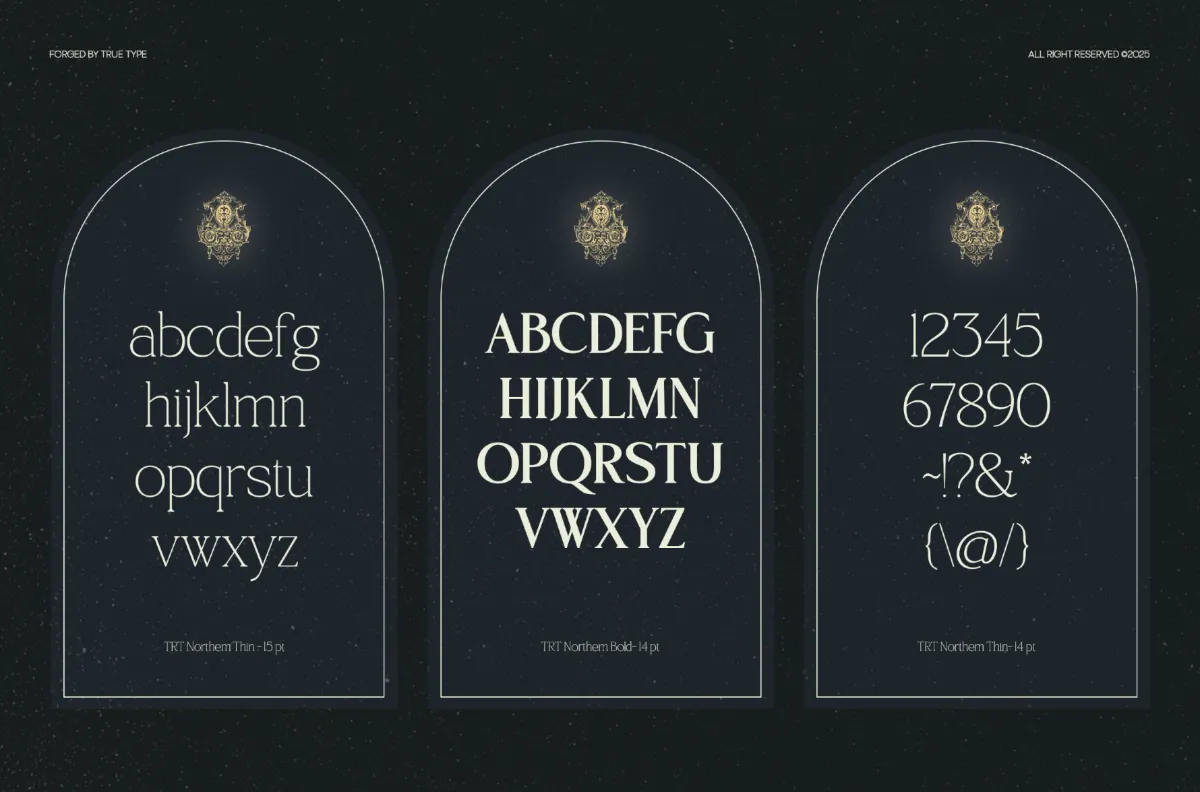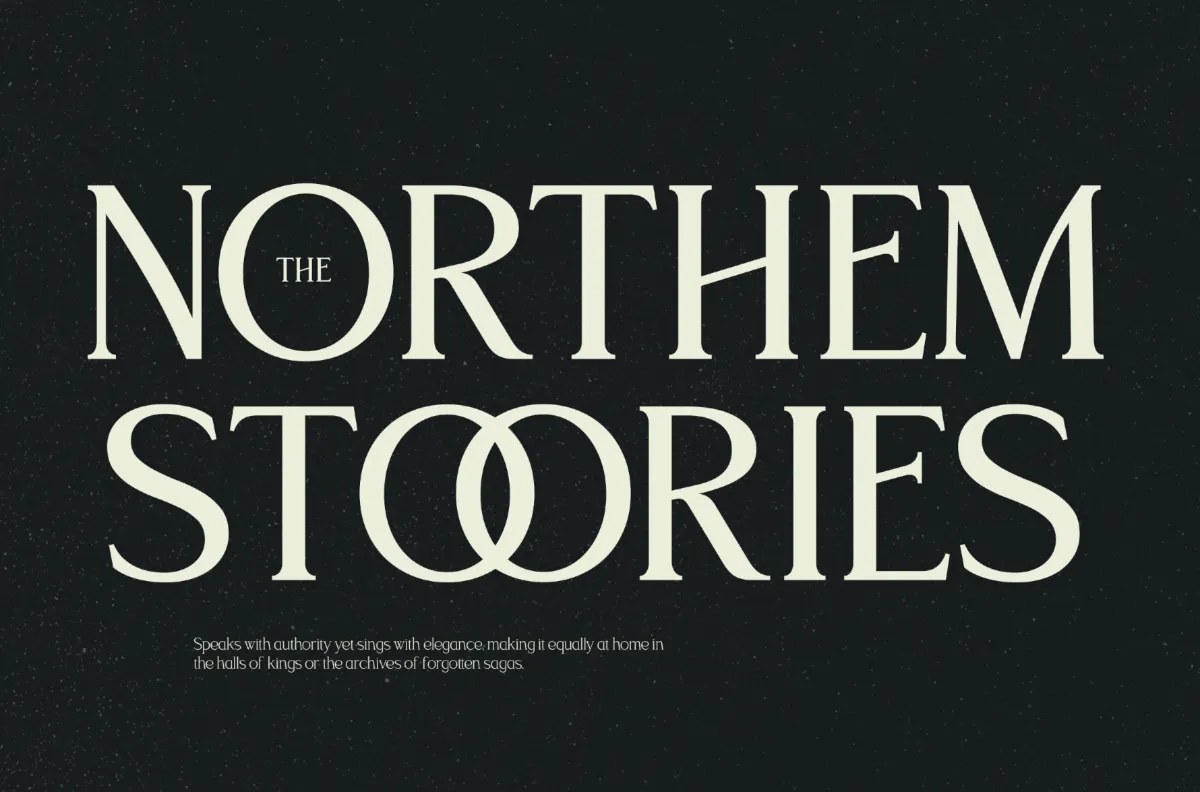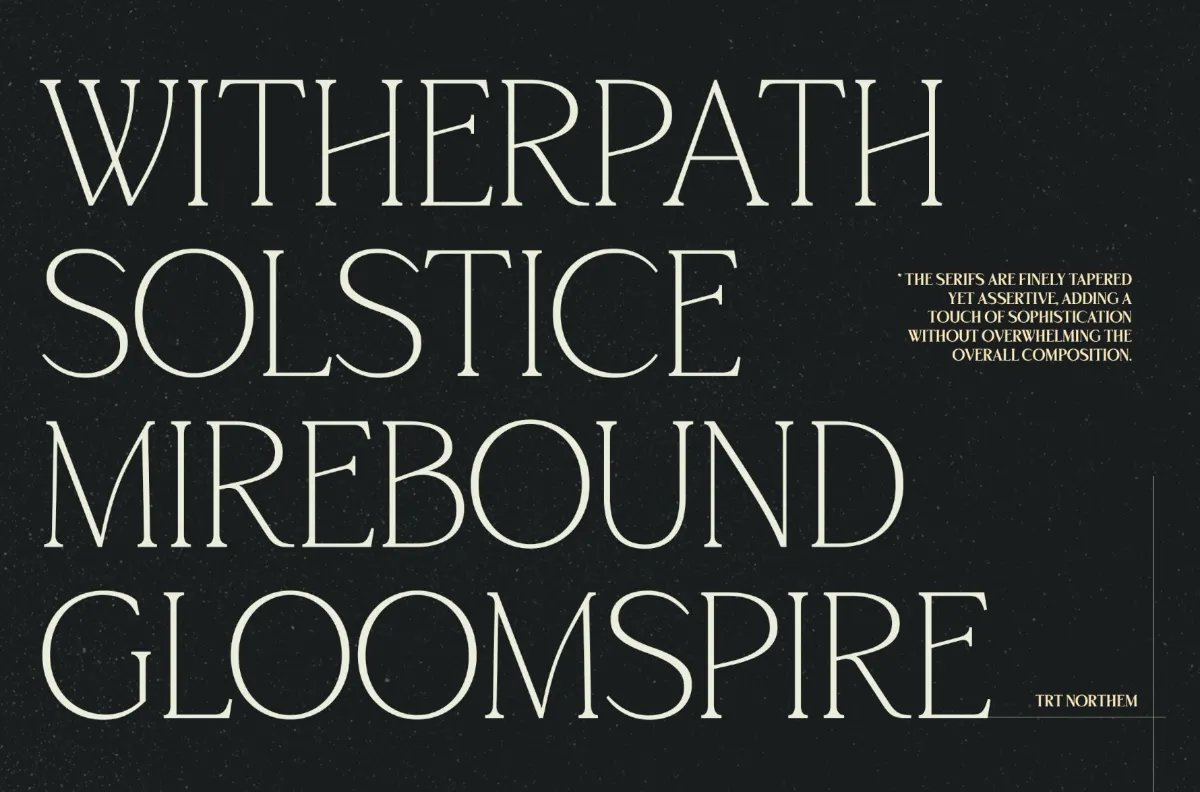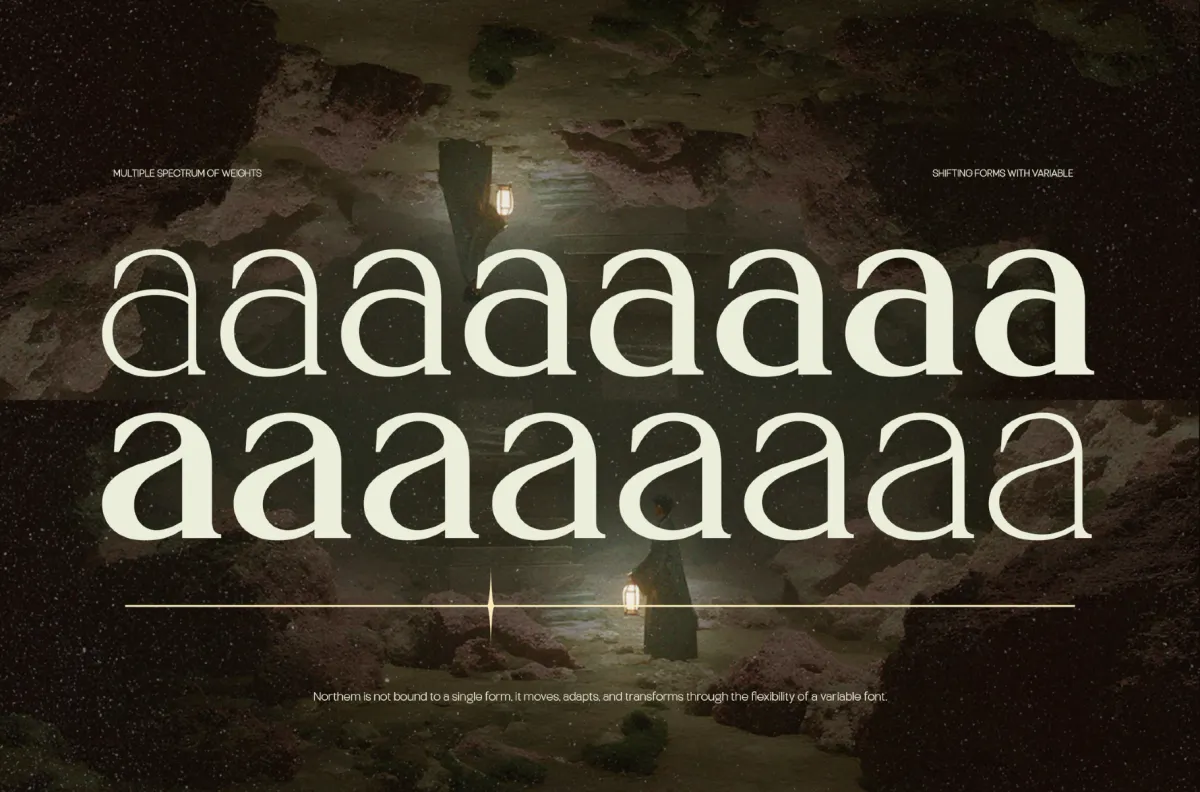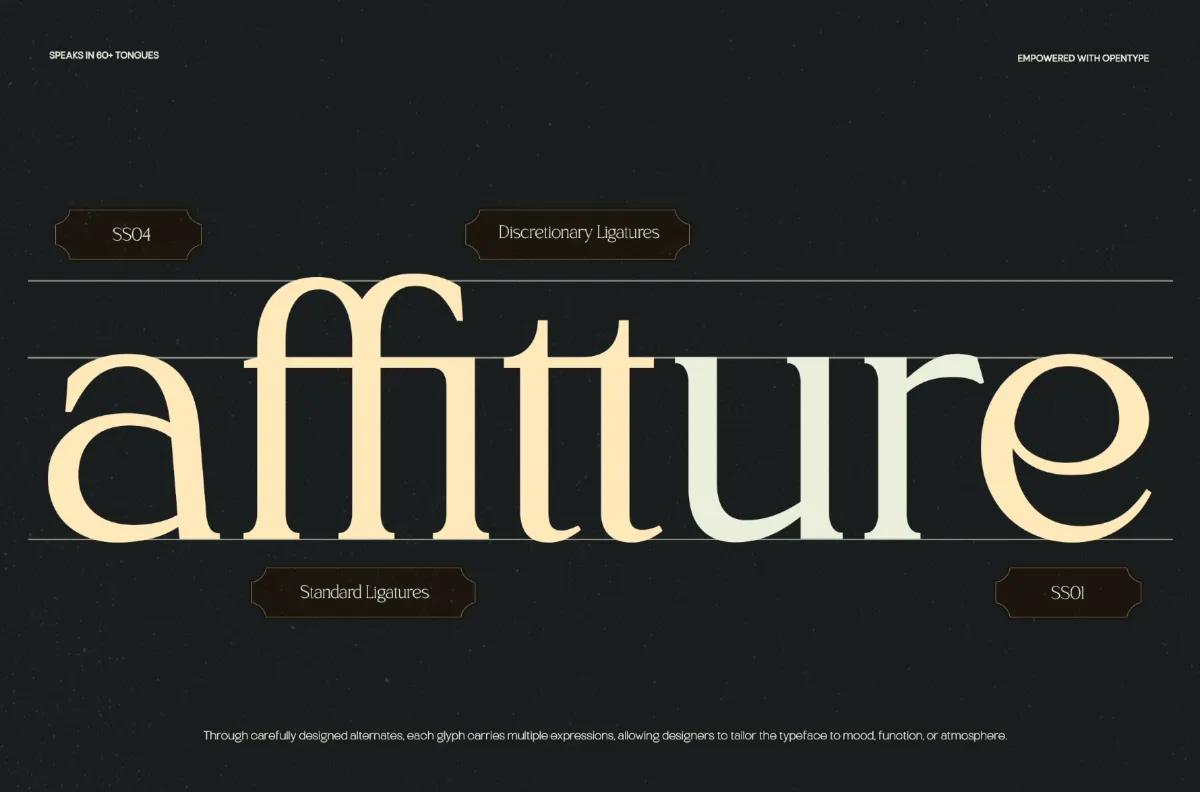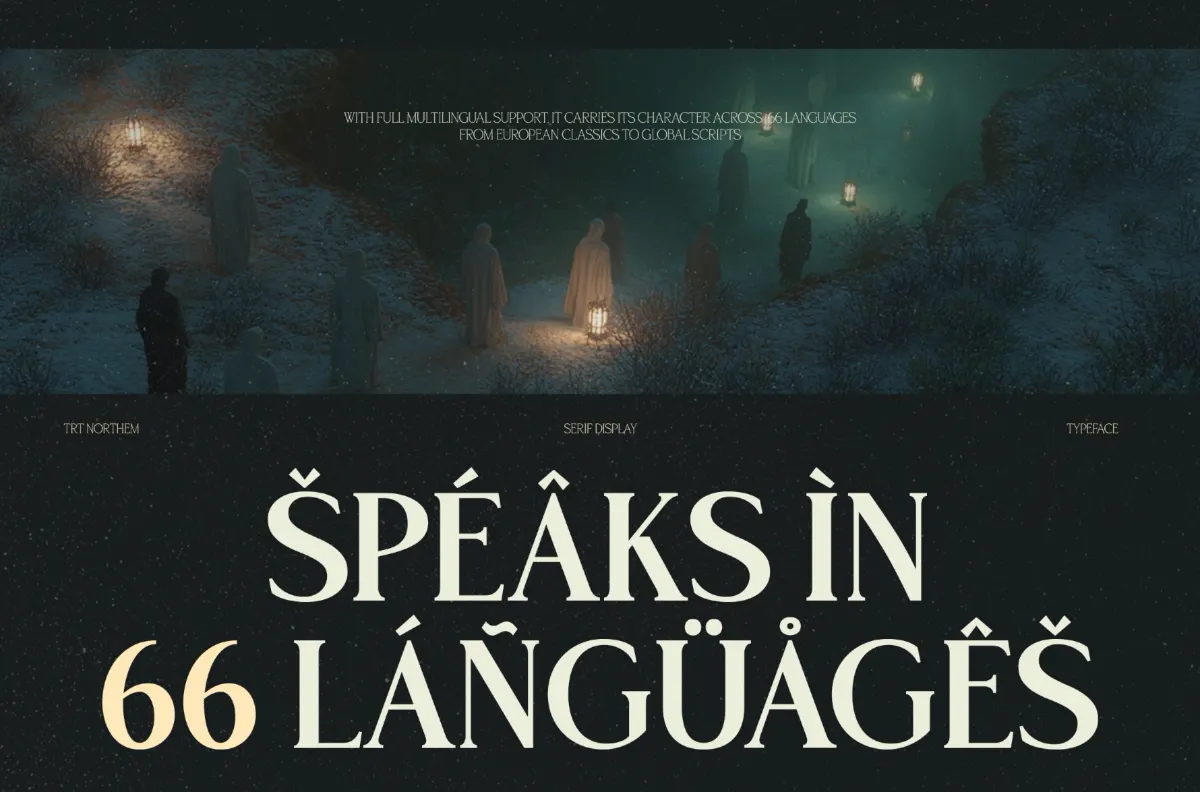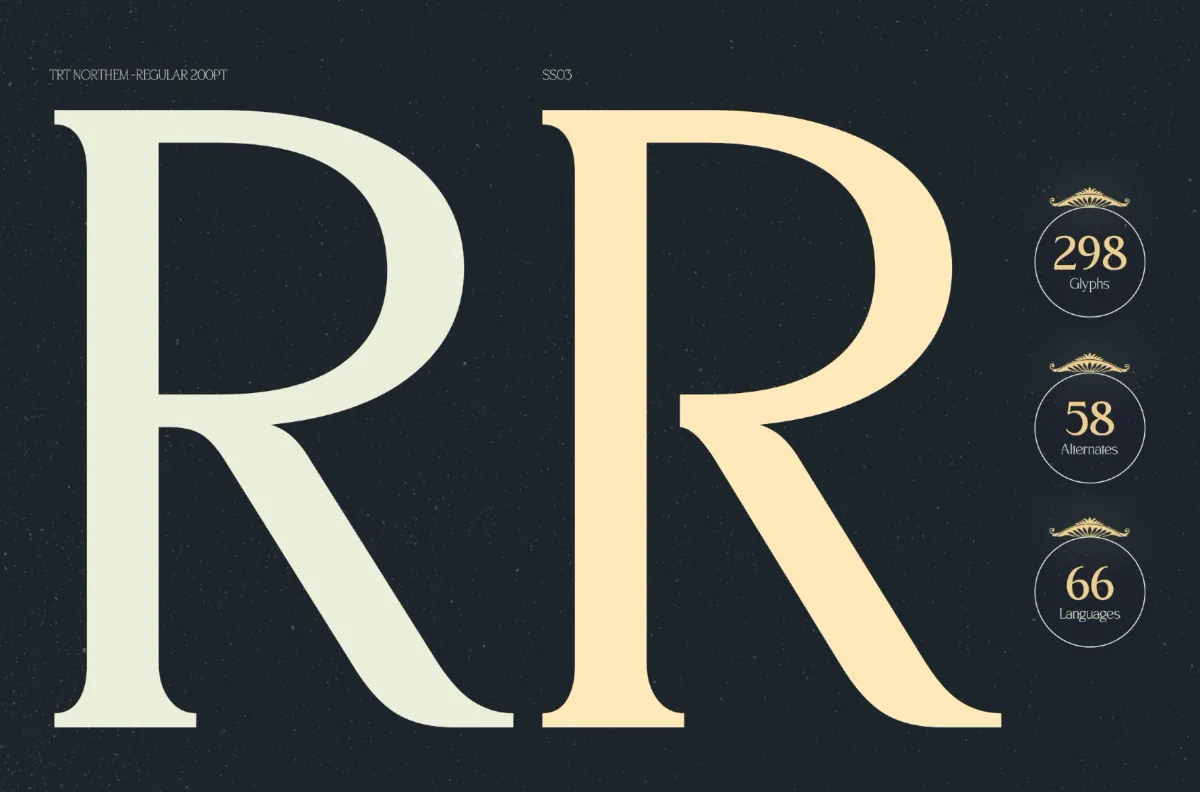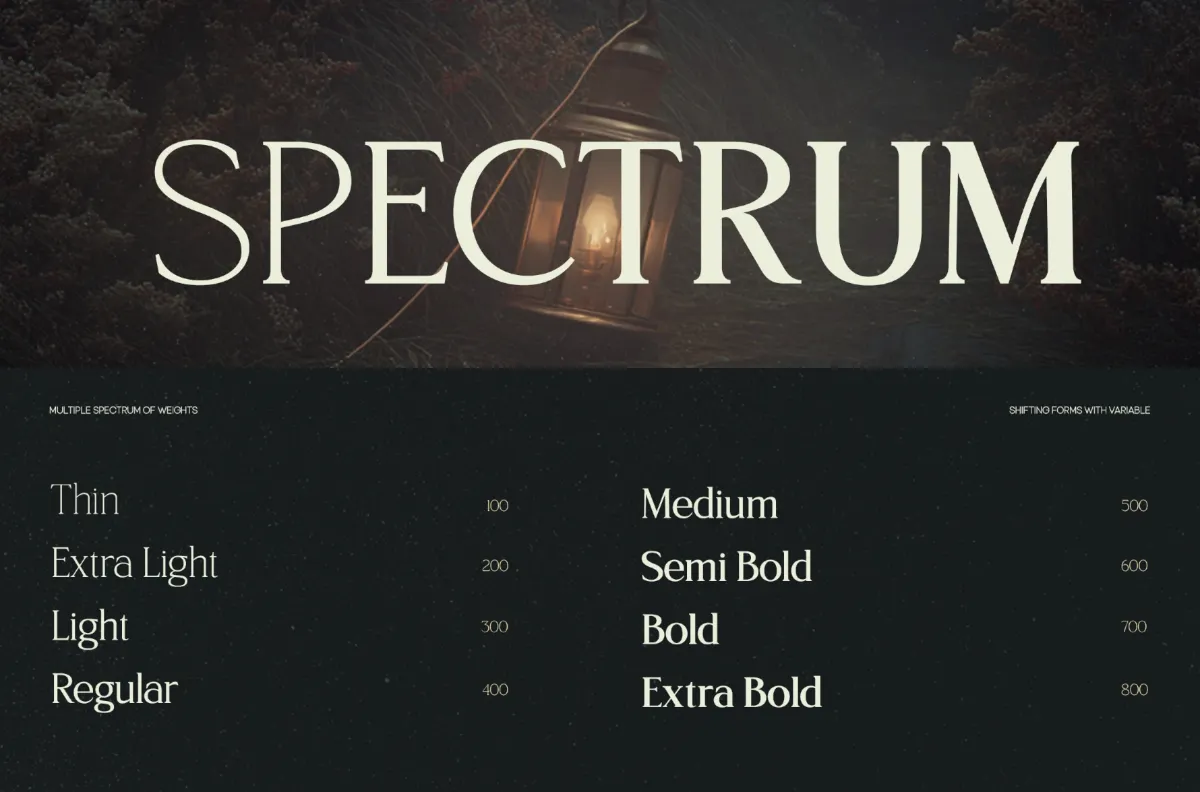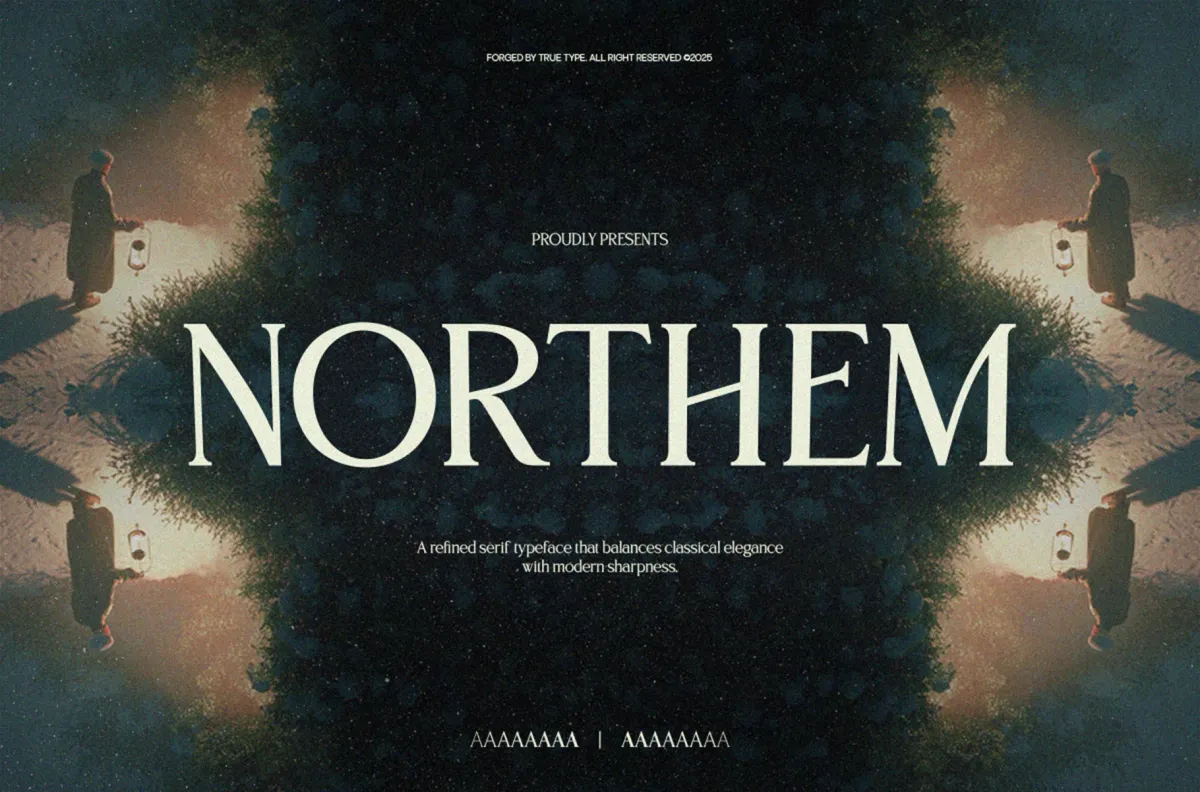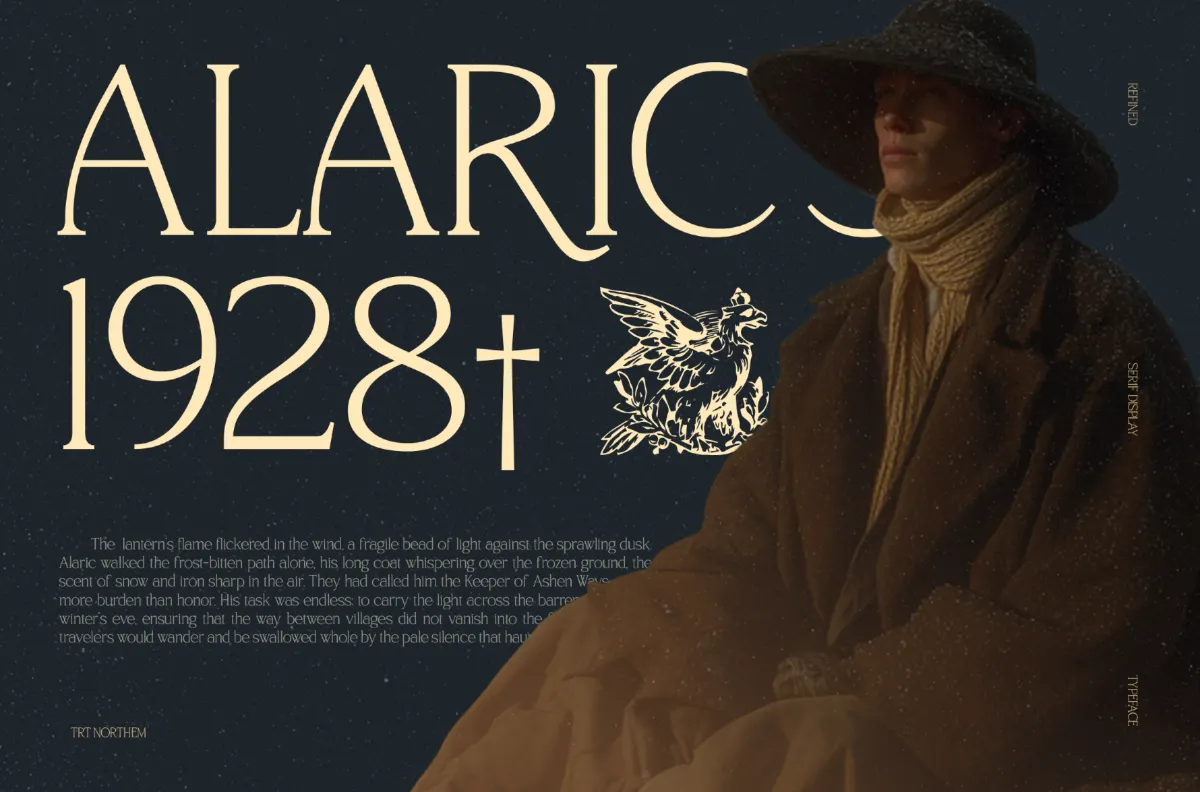
TRT Northem - Elegant Serif Font
TRT Northem carries a nordic-saga hush — lantern light over snow, cloaked figures on a winter path — into a tall serif built for that same quiet authority. Finely tapered serifs and a restrained stroke contrast give the letters a carved, torch-lit gravity, while looping ligatures on pairs like OO and CT soften the rigid capitals without dulling their edge. Eight weights carry that voice from a hairline Thin through a dense Extra Bold, at home on a magazine spread, a title page, a luxury label, or a pitch deck that needs a steadier hand.
• 8 styles: Thin, Extra Light, Light, Regular, Medium, Semi Bold, Bold, Extra Bold;
• Uppercase & Lowercase;
• Numerals, punctuation & symbols;
• Stylistic alternates, discretionary ligatures, fractions, ordinals, superscripts;
• Multilingual support;
• 300 glyphs per style